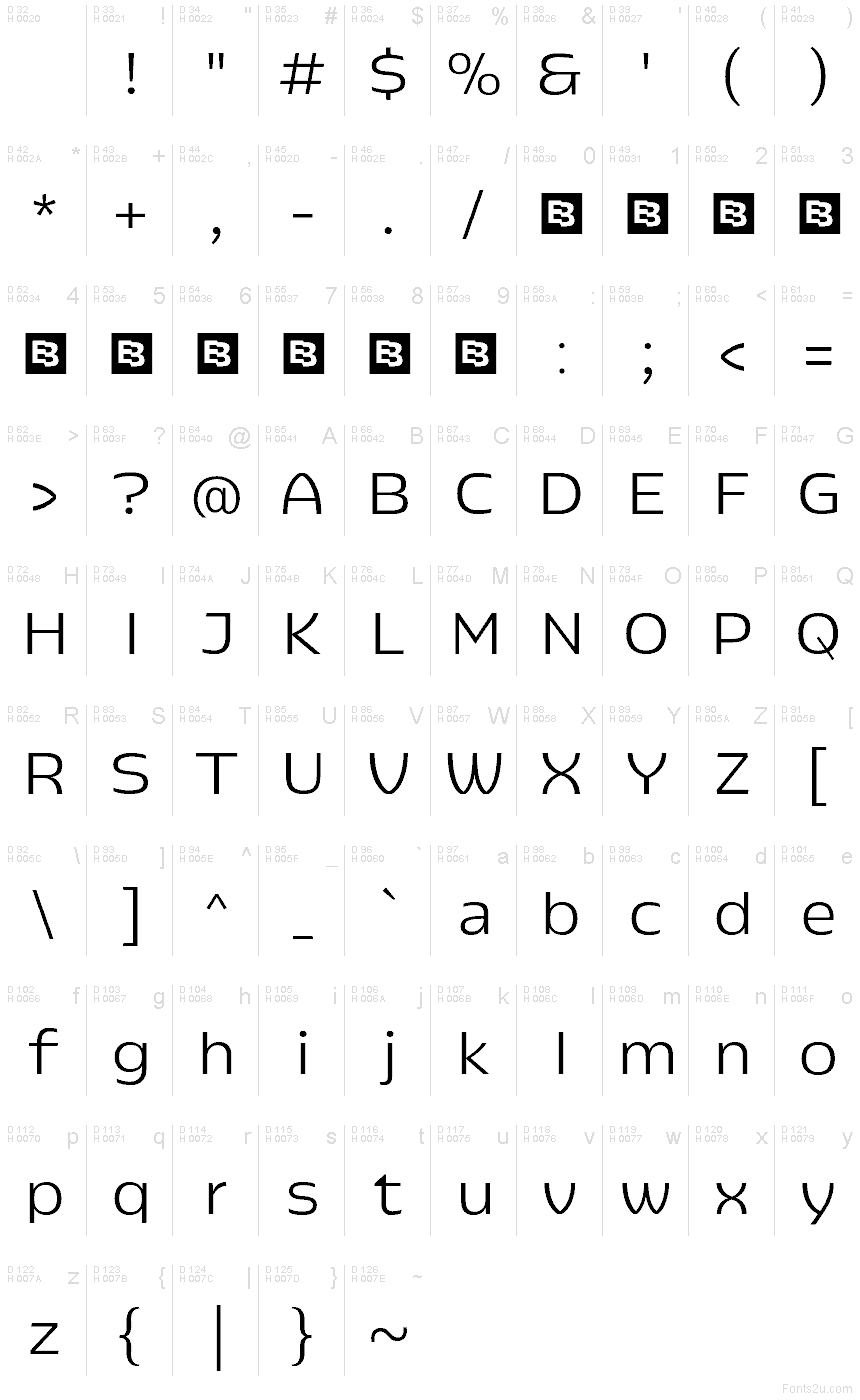
Pocas Trial Light
Pocas Light font by Eko Bimantara is a free humanist sans serif typeface. Part of the Pocas family, it balances airy strokes with open, rounded forms, so text looks crisp instead of wispy. The gentle curves and even rhythm bring a calm, contemporary tone that reads cleanly on screens and on paper, solving the usual “too-thin-to-use” problem many light weights face.
Using Pocas Light, you get a graceful voice for fashion branding, tech landing pages, lifestyle packaging, editorial subheads, UI labels, and minimalist posters. This free font shines when you give it space; add a hair of tracking for headlines and pair it with Pocas Medium or Bold to build a clear, lightweight hierarchy.